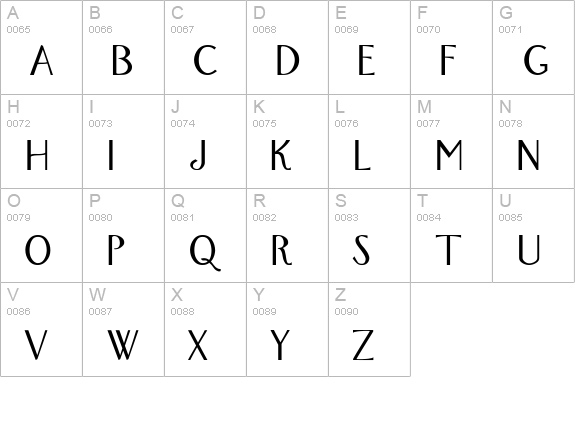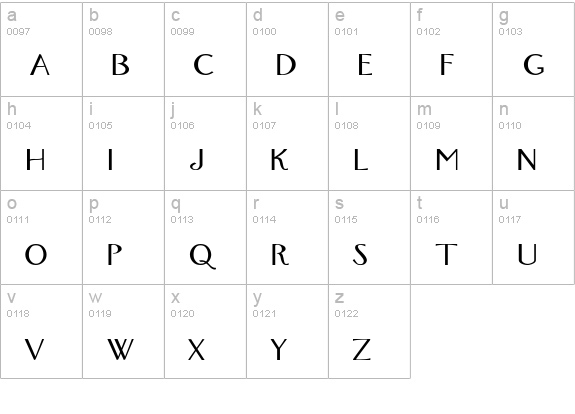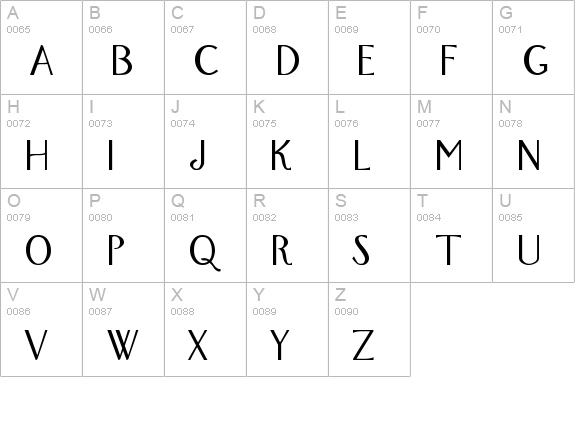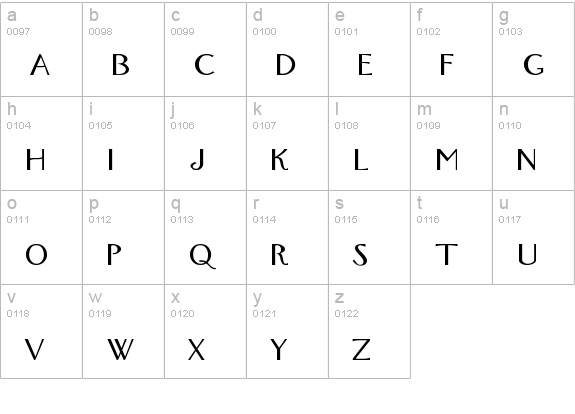
FoxTrotMedium Font Details
FoxTrotMedium is a modern and stylish font that strikes the perfect balance between elegance and readability. Its sleek lines and bold curves make it ideal for a wide range of design projects, from branding to web design. The versatility of FoxTrotMedium allows it to convey both sophistication and approachability, making it a go-to choice for designers looking to make a strong visual impact. What sets FoxTrotMedium apart is not just its design, but also the fact that it is available for free. Yes, you read that right - you can download FoxTrotMedium at no cost from FontsMarket.com. This means that you can add this sleek and professional font to your collection without breaking the bank. So why wait? Enhance your designs with FoxTrotMedium today and experience the power of a high-quality font that won't cost you a dime.